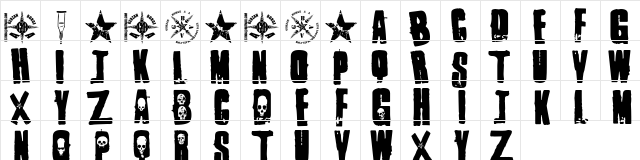
1 Punk Regular
Design Context for 1 Punk Typeface
1 Punk is a composed and adaptable typeface that performs quietly and consistently across a wide range of design contexts.